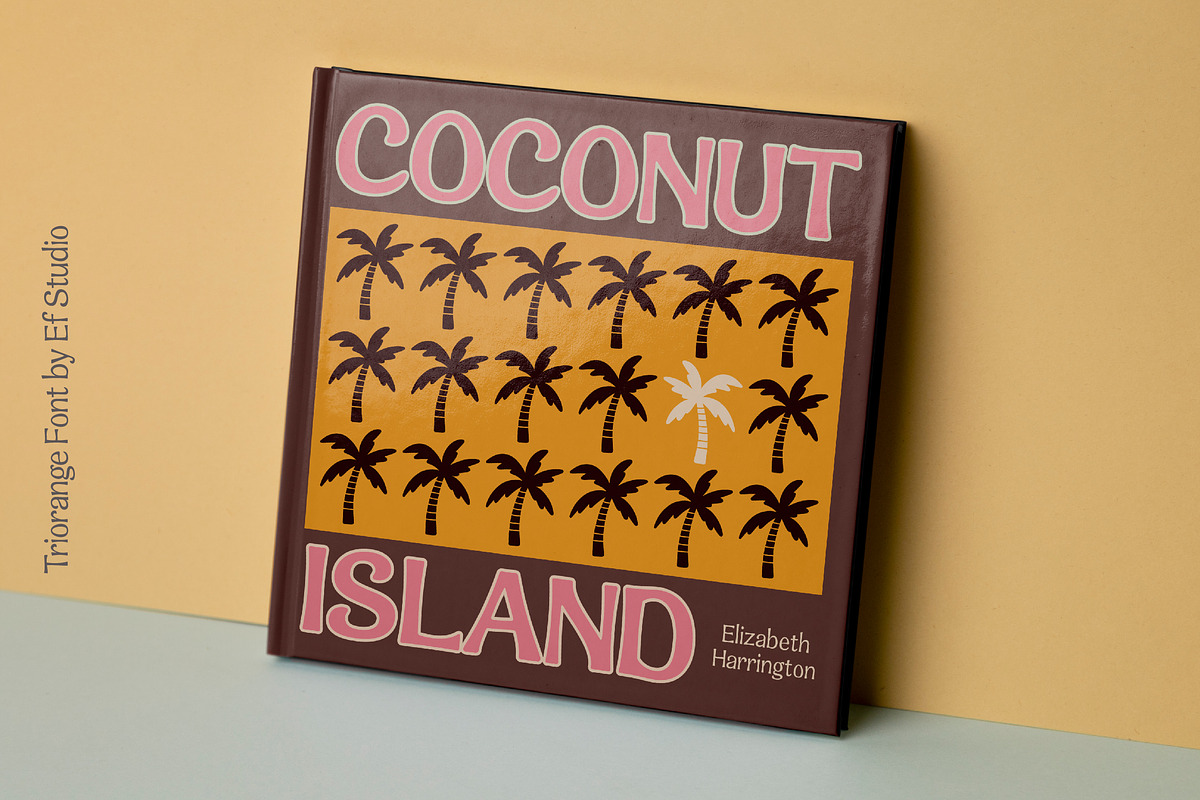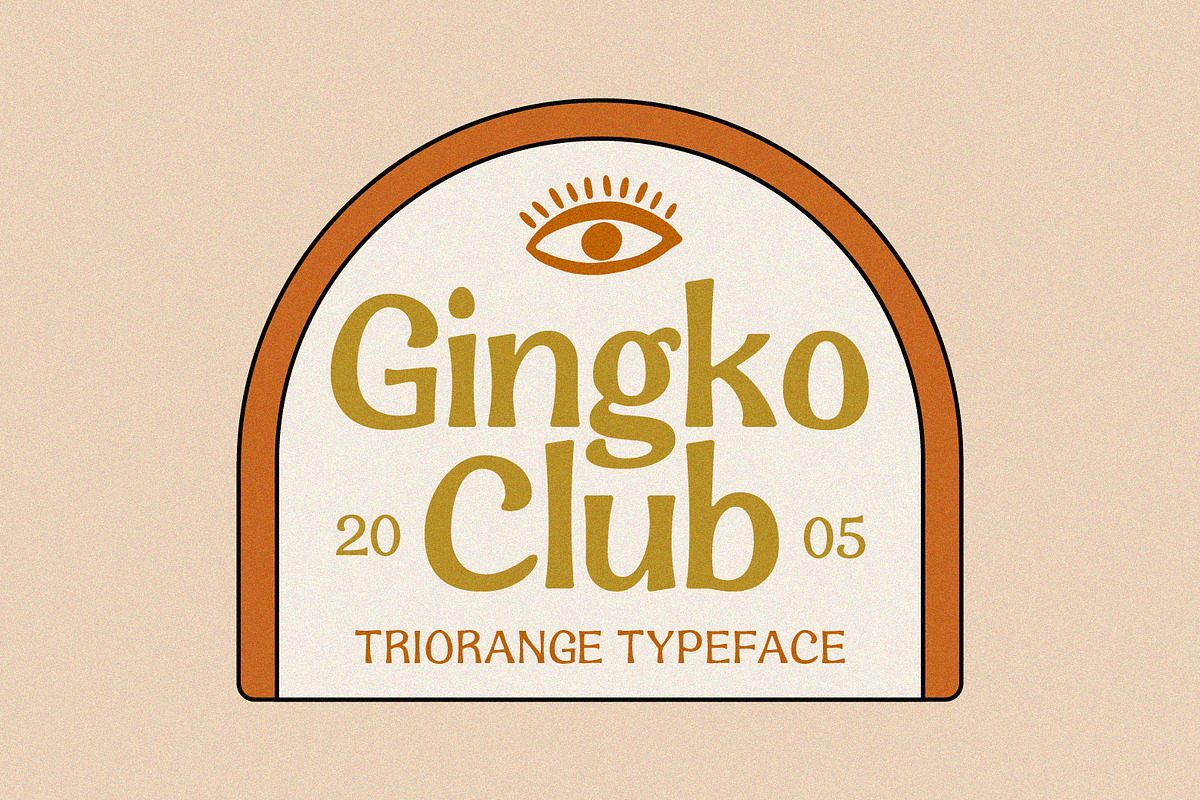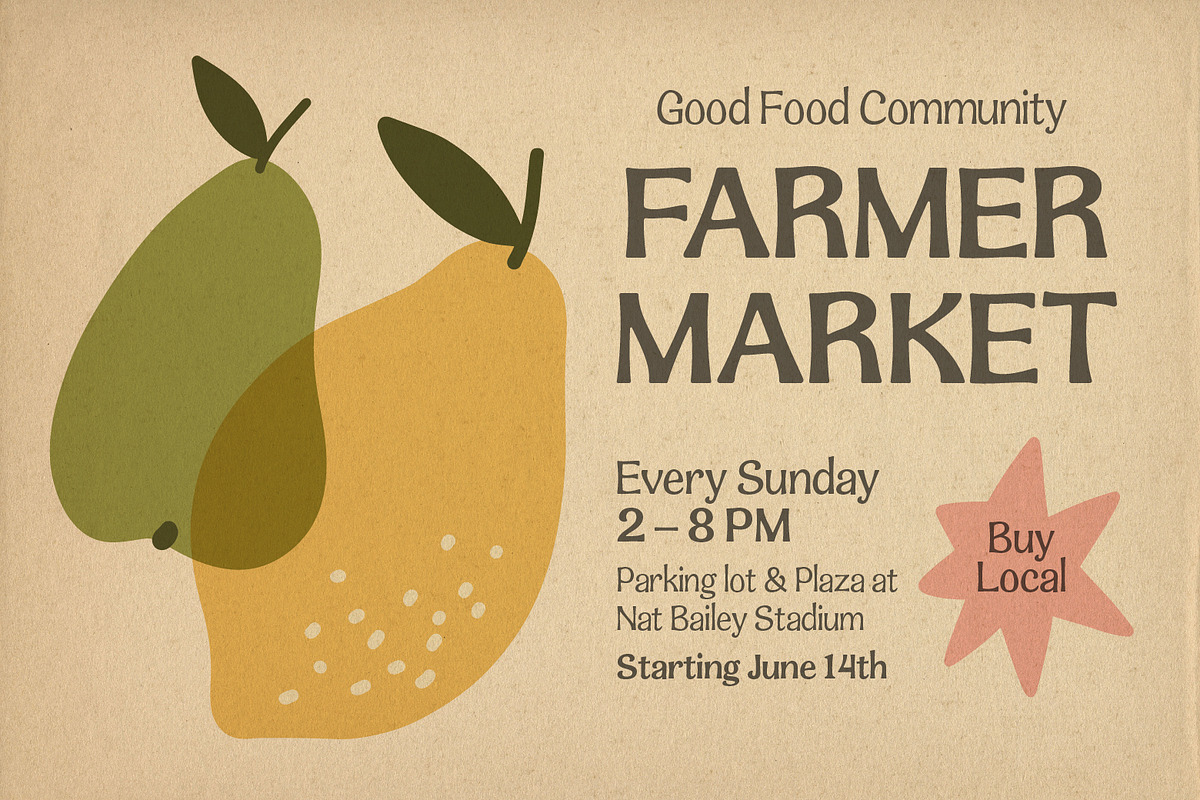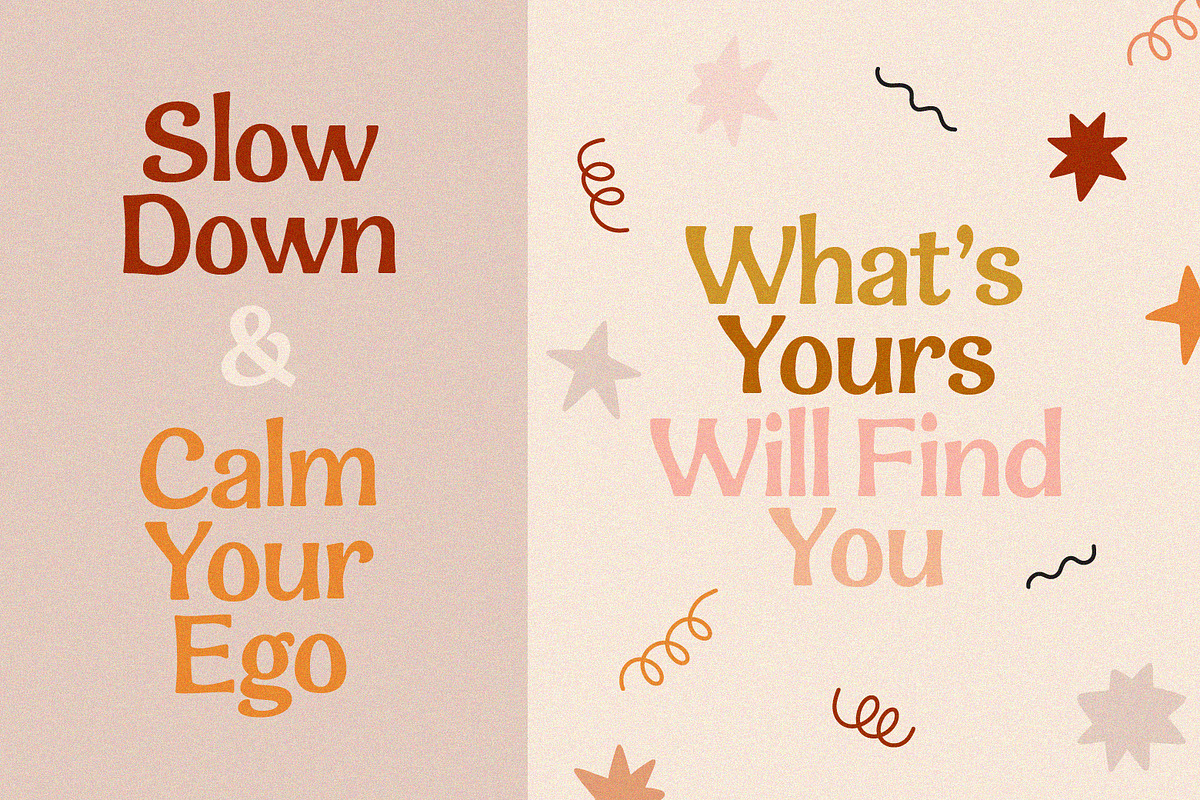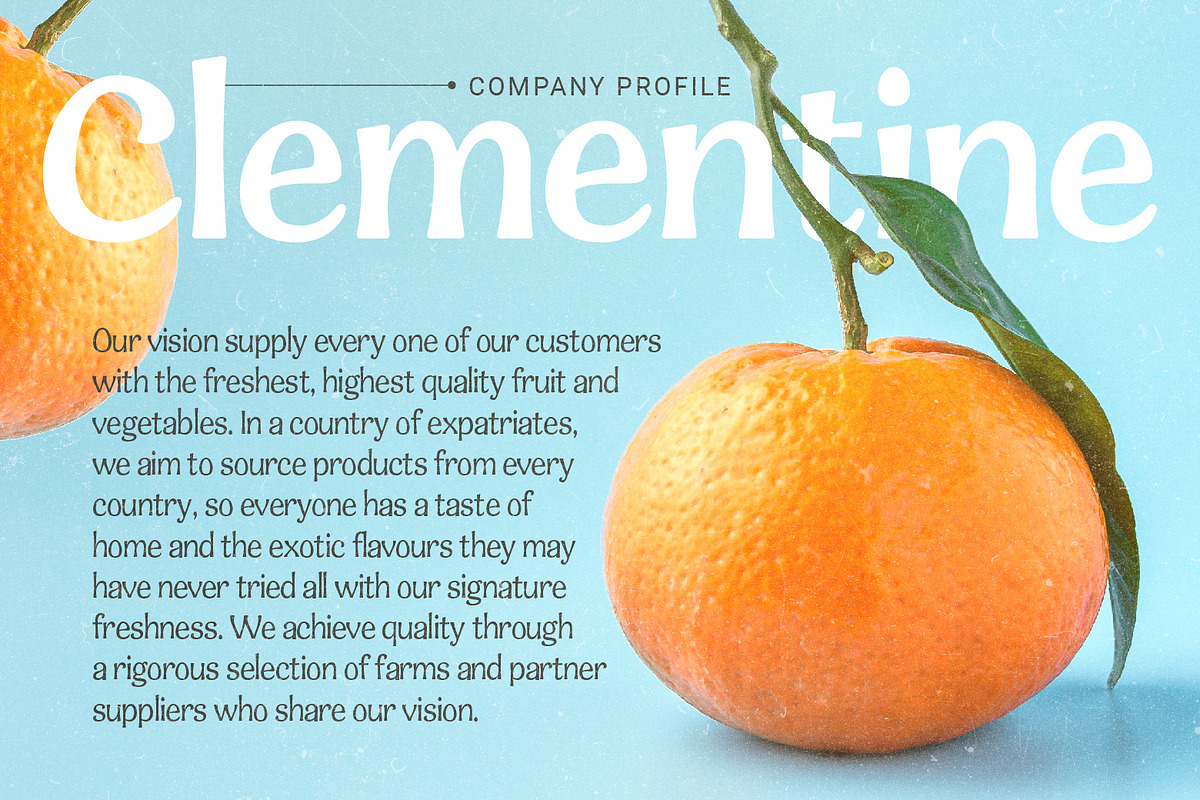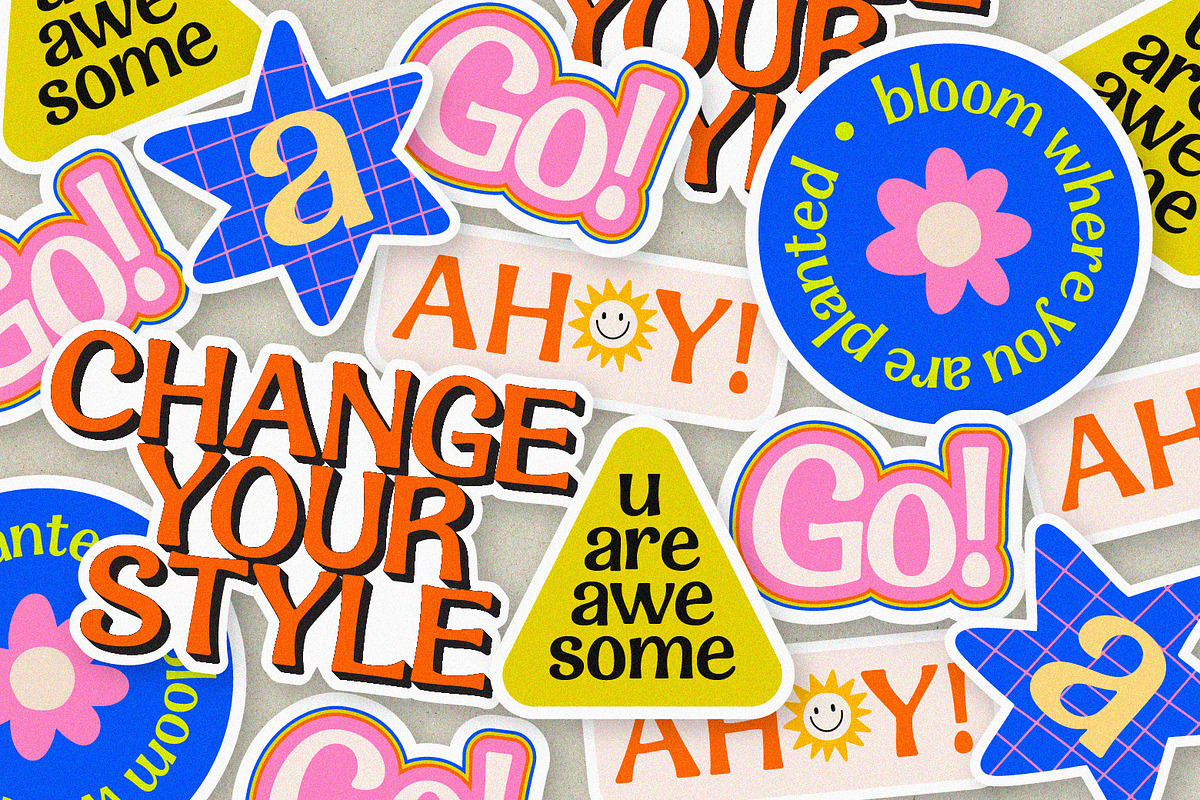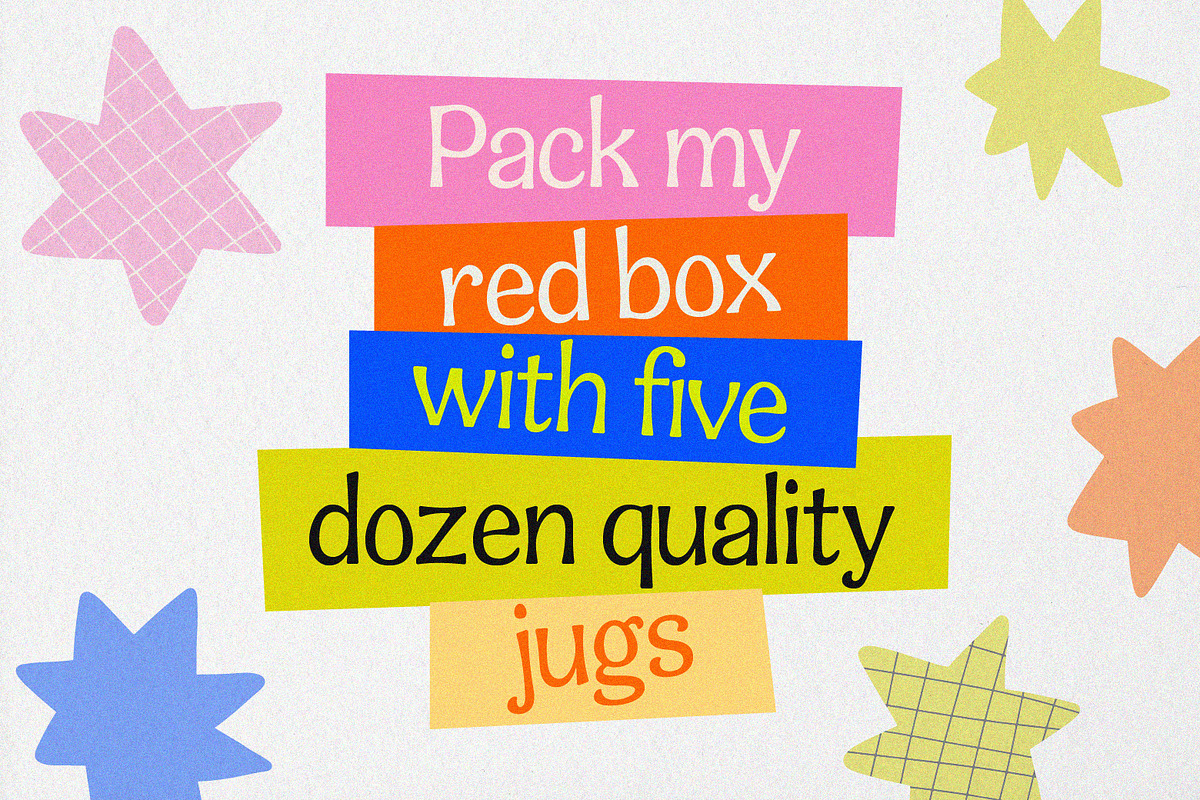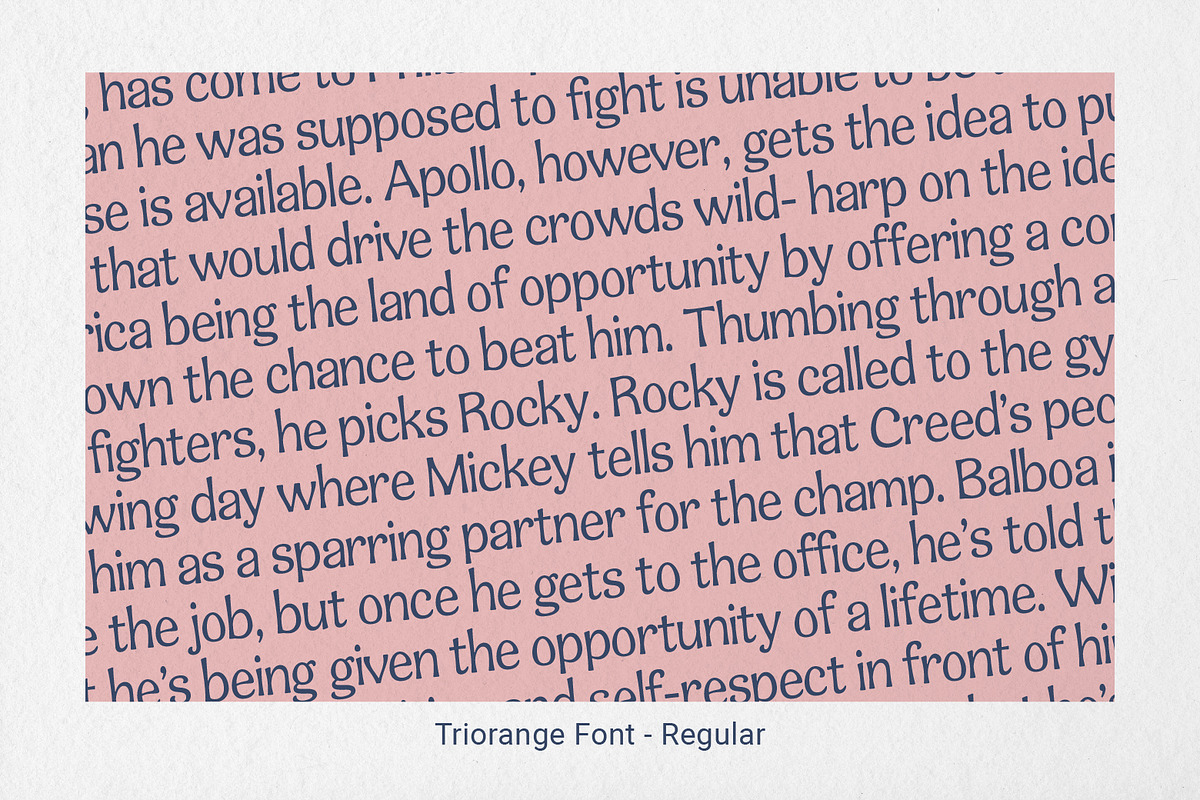
Triorange | Retro Display Font
Introducing Triorange, a retro display font with rounded and smooth corner. Comes with 3 weight : Regular, Medium, and Bold. Simple letter form make this font looks nice either in body text or headline. Perfect for logo, branding, surface design, editorial design, and so many design needs. Bonus! You will get graphic elements in .eps format. It’s editable color and size.